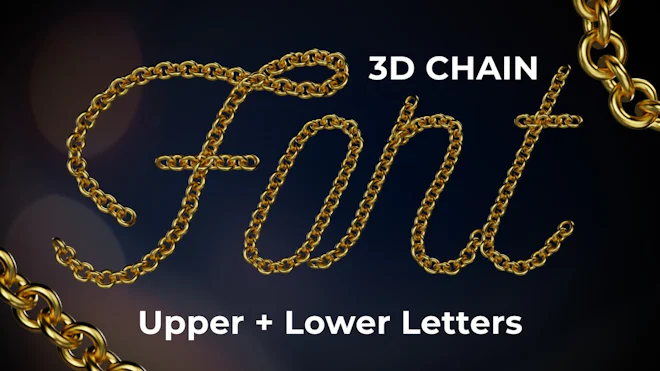
This stock motion graphics video pack includes 52 different clips of animated 3d golden chain upper and lower letters on a transparent alpha channel in a seamless loop.